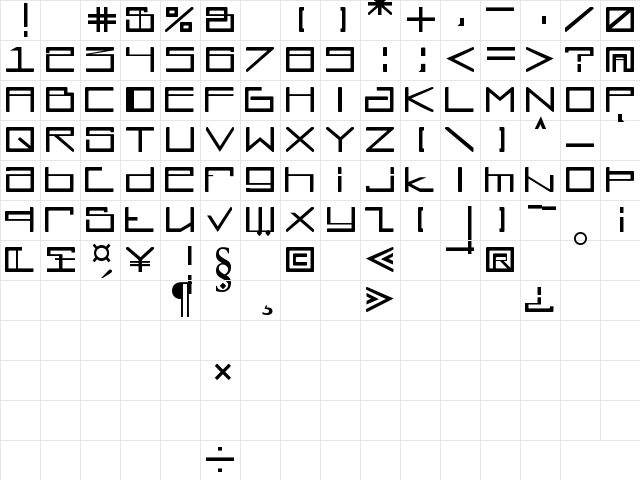
Glyphstream Regular
| Designer | BIll Roach |
Design Context for Glyphstream Typeface
Glyphstream is a composed and adaptable typeface that performs quietly and consistently across a wide range of design contexts.